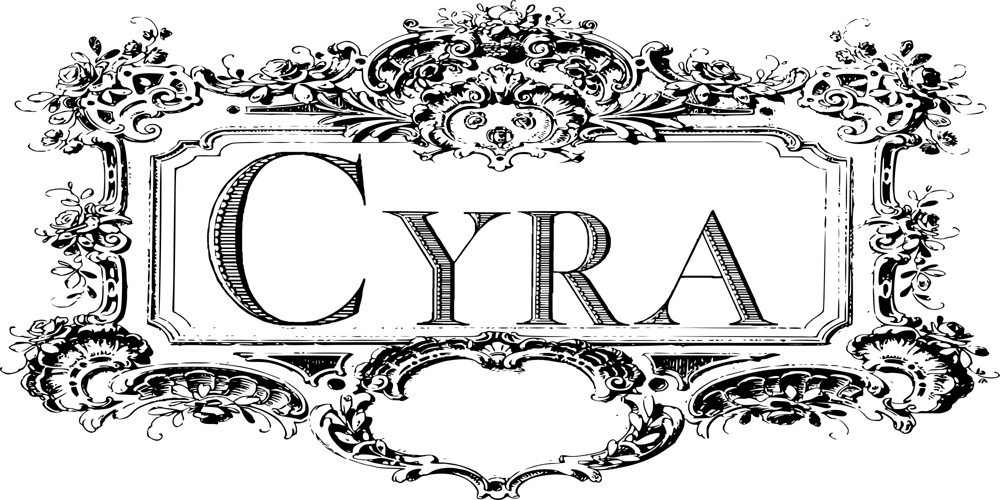
Cyra
Cyra font
Cyra Font Family was designed by Paulo W and published by Intellecta Design. Cyra contains 1 styles and family package options. Cyra is a shaded roman serif classic font. Distressed and antique, use this font in display purposes for a stylized type design. Uppercase letter designs only, works best when used for headers and set manually.